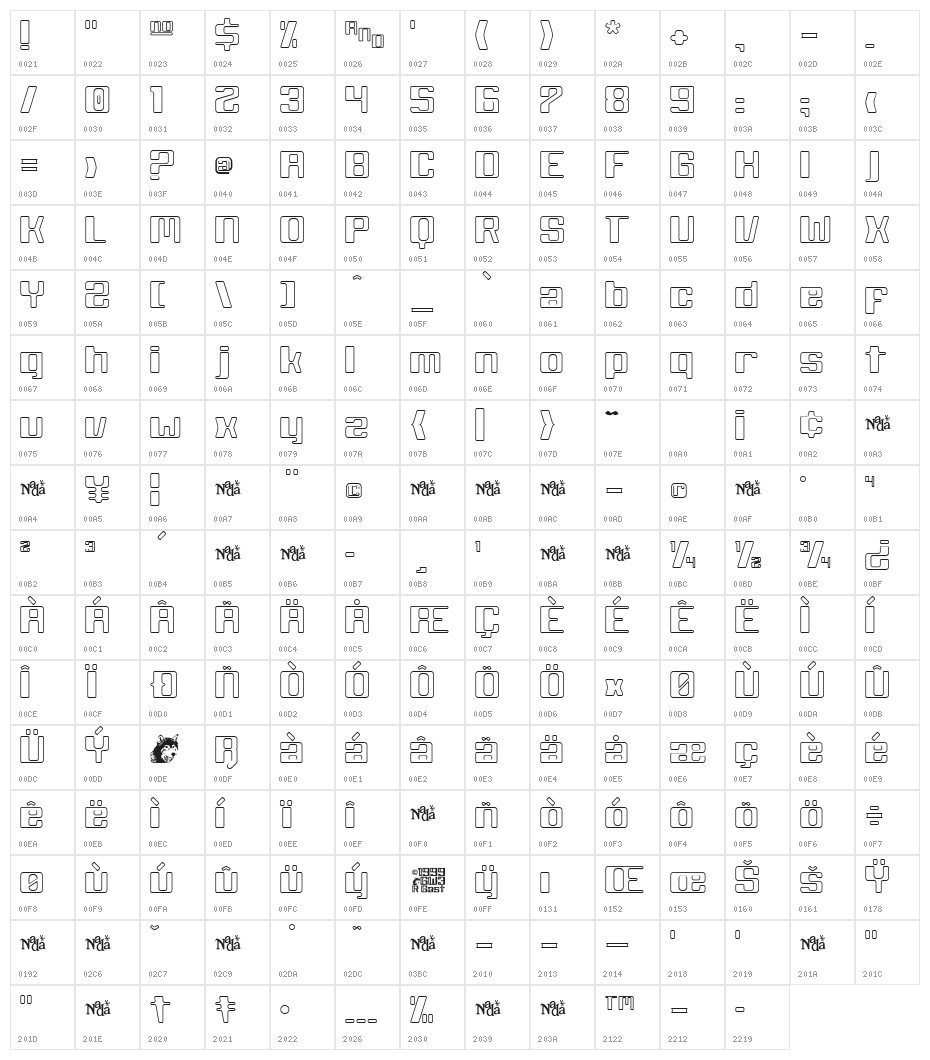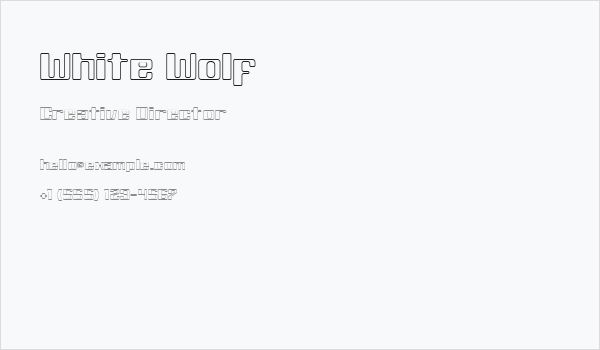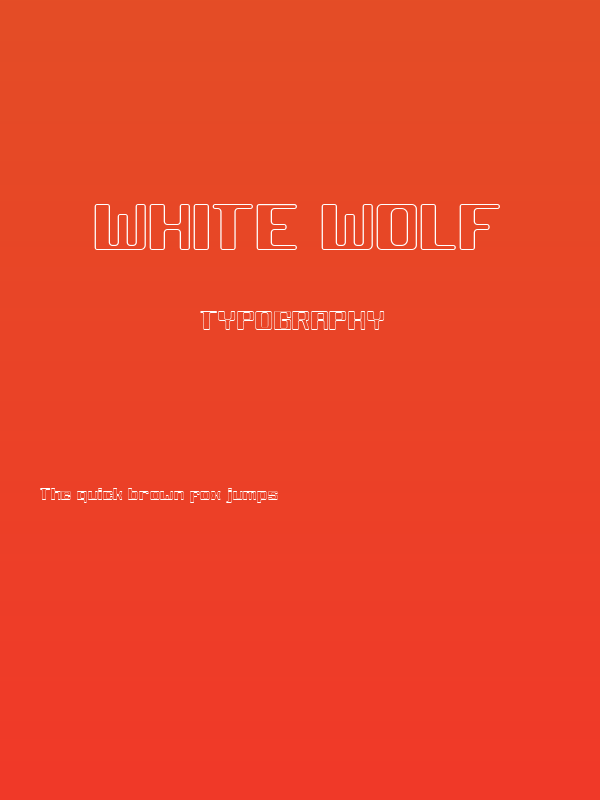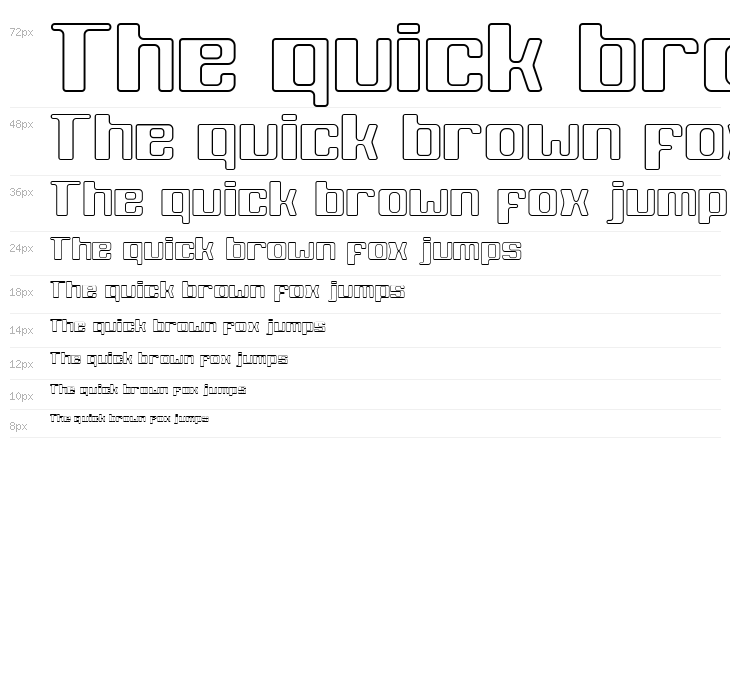
White Wolf Font
White Wolf Description
This font features a unique, geometric outline style with a modern and futuristic appearance. Each character is constructed with a consistent line weight, creating a hollow effect that emphasizes its structural form. The uppercase and lowercase letters maintain a uniform height, contributing to a cohesive and balanced look. The numerals and special characters follow the same design principles, ensuring visual harmony across all elements. This font's distinct outline and angular shapes make it stand out, offering a bold and innovative aesthetic.
| Proposed Projects | Ideal for tech branding, futuristic posters, digital artwork, and modern logo designs. |